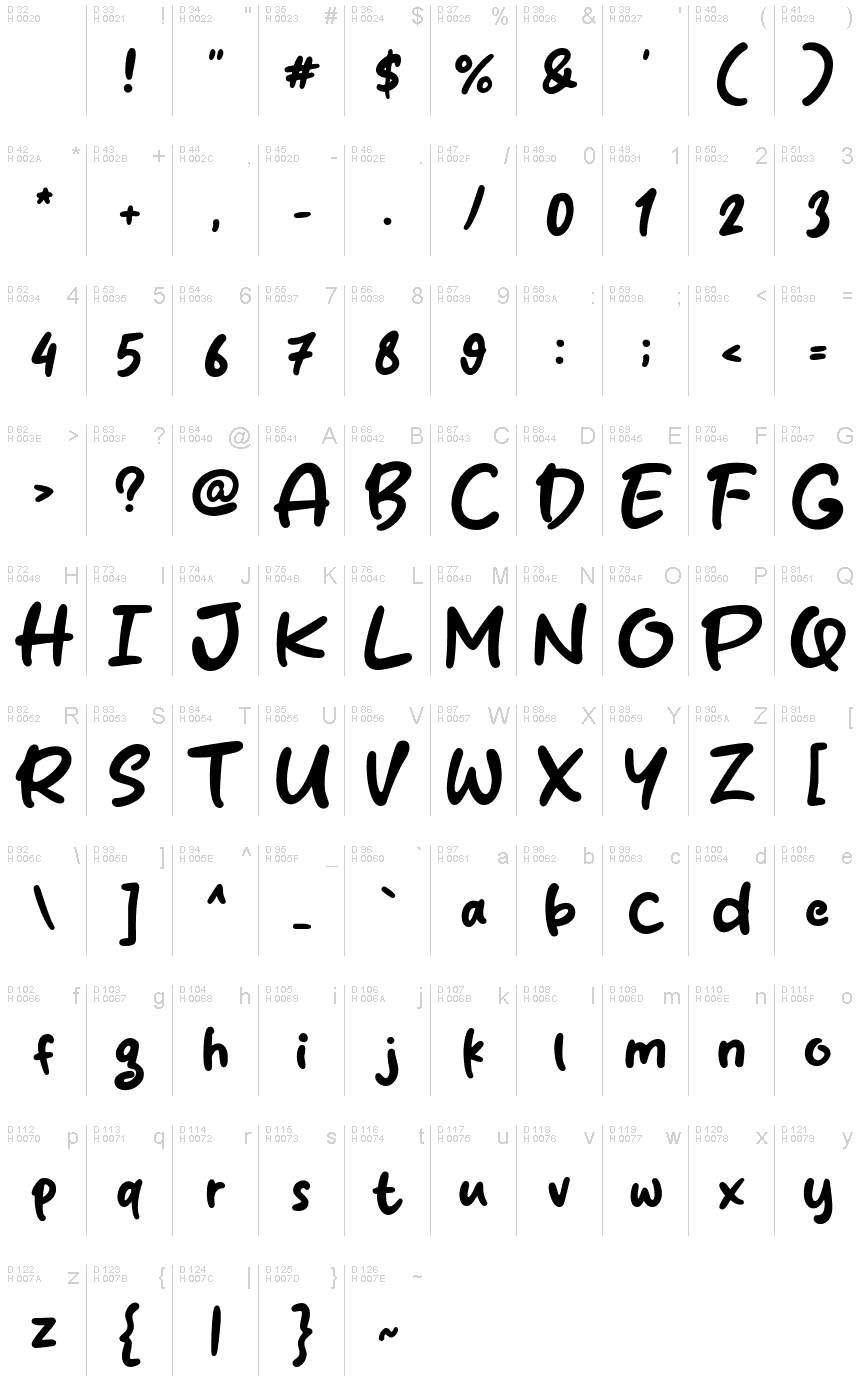
Cakecafe
Welcome to the fun-filled world of Cakecafe, a display font created by the talented Khurasan. This semi-bold typeface is perfect for adding a playful touch to any project, be it a birthday invitation, comic book title, or bakery logo. The whimsical curves and exaggerated strokes of Cakecafe make it an ideal choice for designs that need to convey joy and light-heartedness. Whether you're creating a children's book cover or designing packaging for sweet treats, this comic-inspired font will help you bring your vision to life with its charming personality. So why wait? Add some sweetness to your next project with Cakecafe!